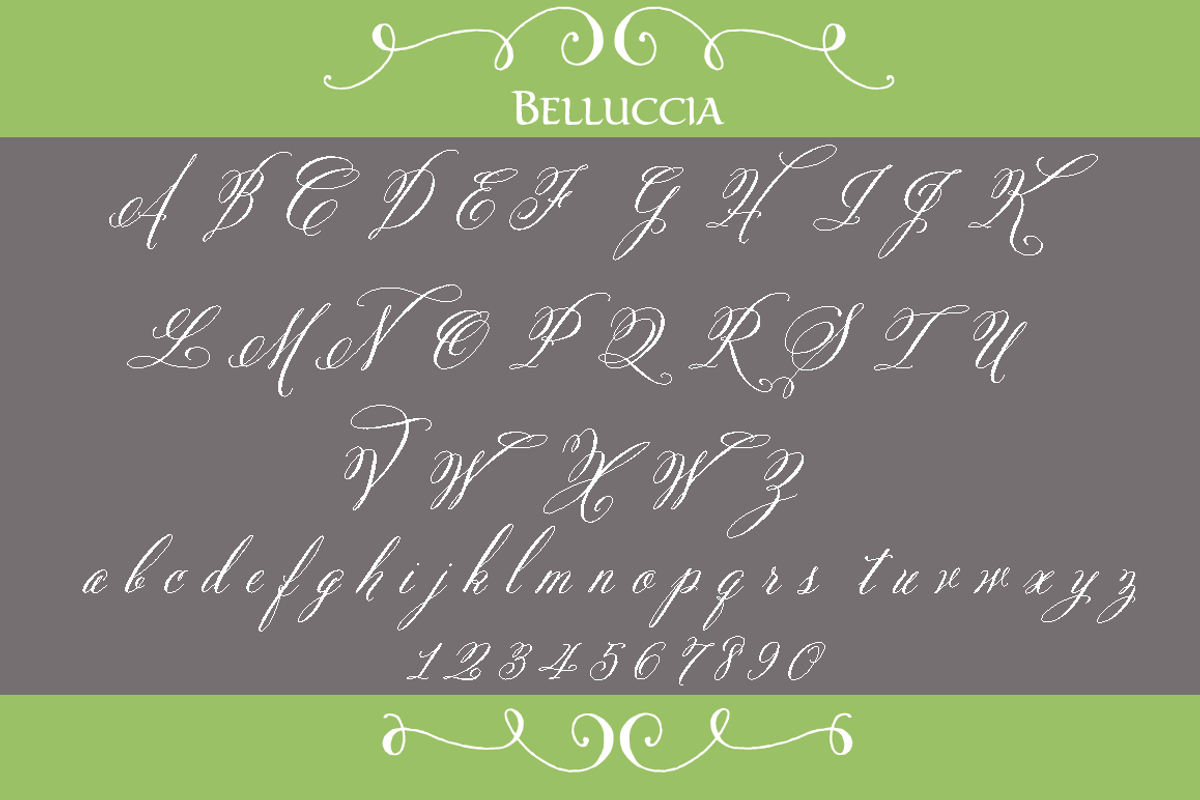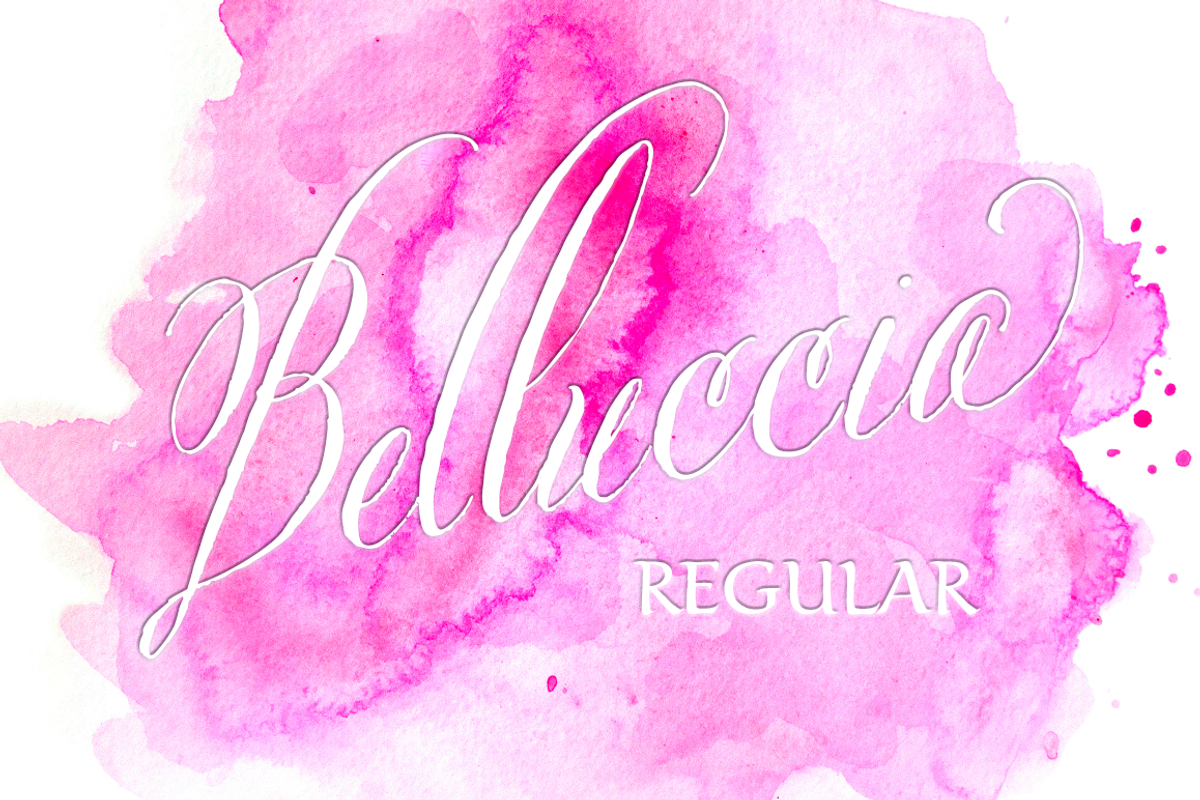
Belluccia Hand Lettered Font
Belluccia Hand Lettered Font by Debi Sementelli is a font selected for branding, posters, packaging, typography.
- Belluccia contains a total of 408 glyphs including one version of the Belluccia font alphabet and a basic set of flourishes and ornaments.
Why Belluccia Hand Lettered Font is worth a look
Belluccia Hand Lettered Font by Debi Sementelli fits naturally into Branding, posters, packaging, typography.